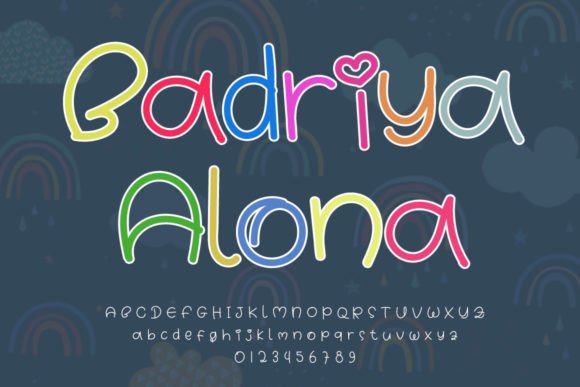
Introducing Badriya Alona: The Exquisite Script Font That Captivates Hearts
In a world where beauty and elegance reign supreme, Badriya Alona emerges as a font of unrivaled charm, ready to transform your designs into breathtaking masterpieces. This script font, crafted with meticulous care by the renowned Bill Kiss Studio, is a symphony of flowing lines and enchanting curves, capturing the essence of handwritten artistry with an air of effortless sophistication.
Step into a world where words dance with grace and emotions leap off the page. Badriya Alona is more than just a font; it's an invitation to embark on a creative journey where your imagination knows no bounds. Let your designs blossom with the delicate strokes of Badriya Alona, adding a touch of heartfelt elegance to every project you undertake.
With Badriya Alona as your trusted companion, you'll discover a world of creative possibilities. Craft stunning logos that exude a timeless allure, design eye-catching social media posts that captivate your audience, or create unforgettable branding materials that leave a lasting impression. This font is a versatile chameleon, effortlessly adapting to your unique vision, adding a touch of sophistication to formal documents or infusing whimsical charm into personal projects.
Badriya Alona's versatility knows no limits. Whether you're a seasoned designer, a budding entrepreneur, or simply someone with a passion for creating beautiful things, this font will unlock your creative potential, allowing you to express yourself in ways you never thought possible.
Embrace the beauty of Badriya Alona and let your designs shine with newfound brilliance. Immerse yourself in a world where creativity thrives and your imagination takes center stage. Download Badriya Alona today and unlock the door to a world of endless possibilities.